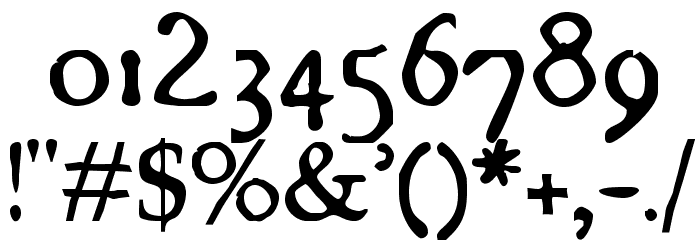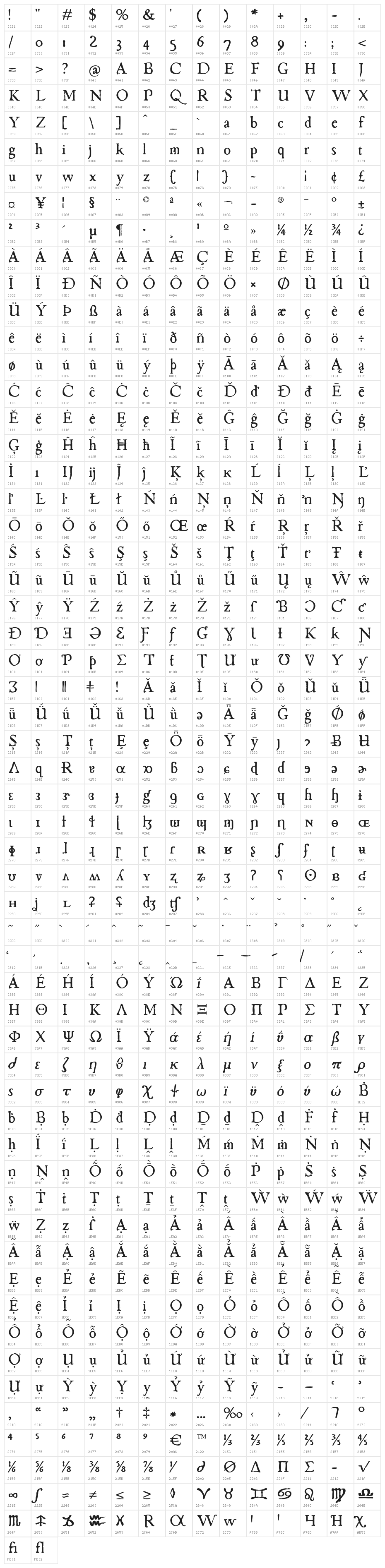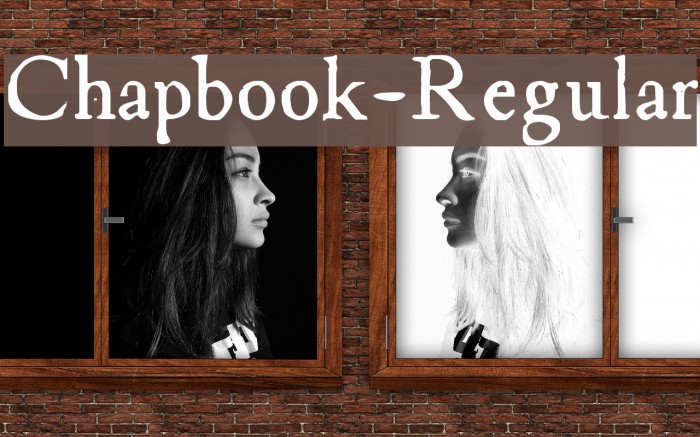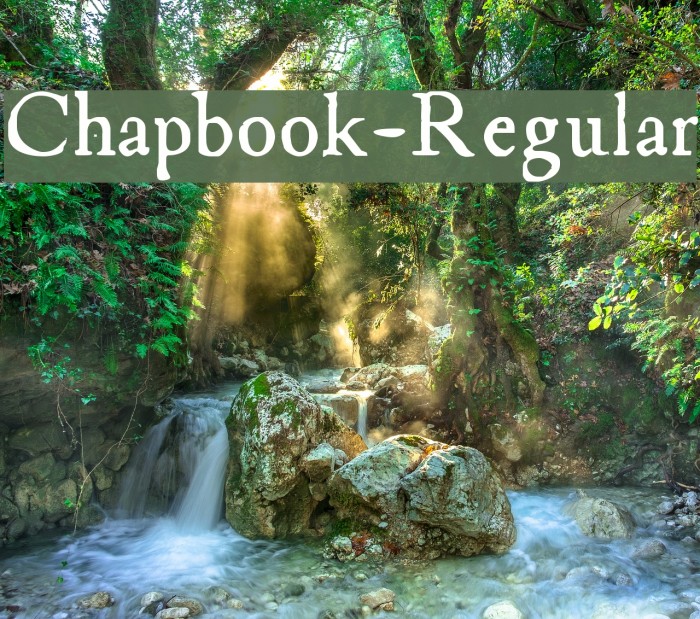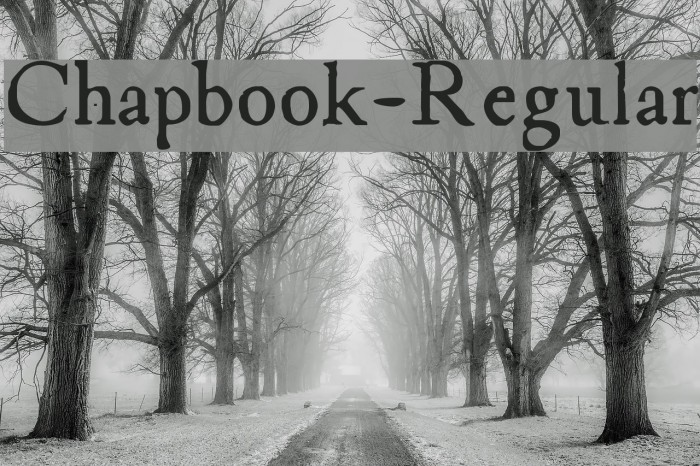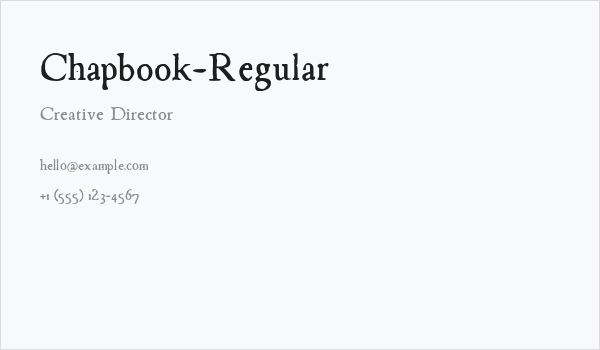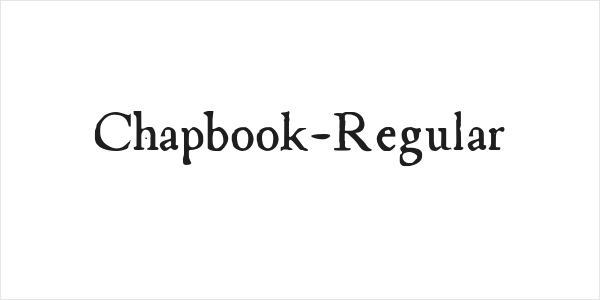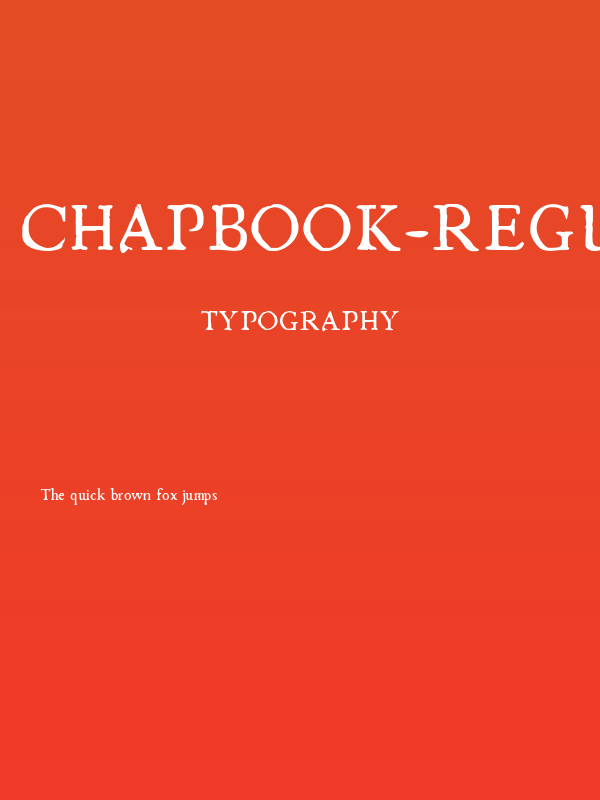
Chapbook-Regular Font
Chapbook-Regular Description
This font exudes a vintage and handcrafted feel, reminiscent of old printed books and manuscripts. The characters are slightly irregular, giving it a charming, rustic appearance. The uppercase letters are bold and commanding, while the lowercase letters maintain a consistent style with unique flourishes. Numbers and special characters follow the same aesthetic, adding to the font's cohesive look. The overall design is both artistic and functional, making it suitable for projects that require a touch of nostalgia and creativity.
| Proposed Projects | Ideal for book covers, posters, invitations, and branding that seeks a vintage or artisanal touch. |